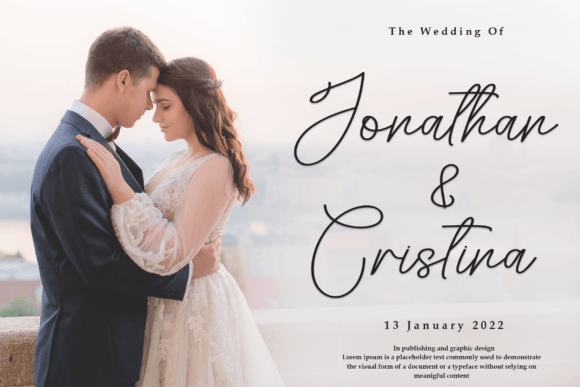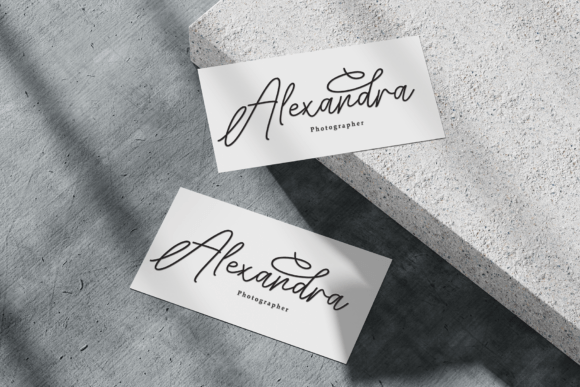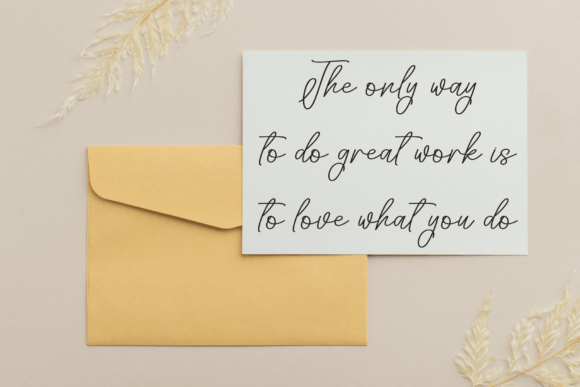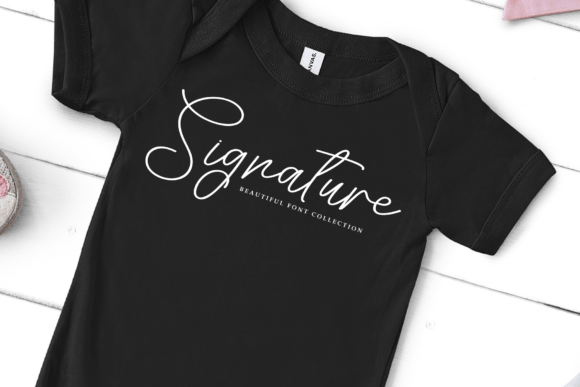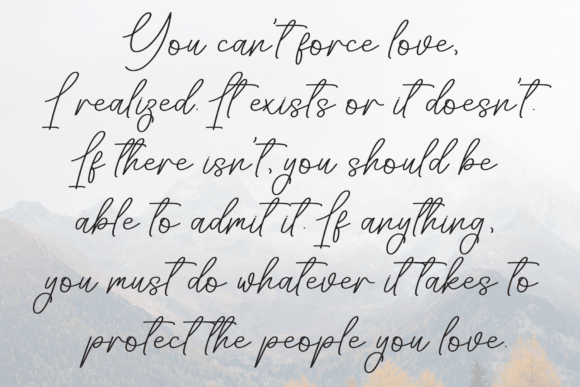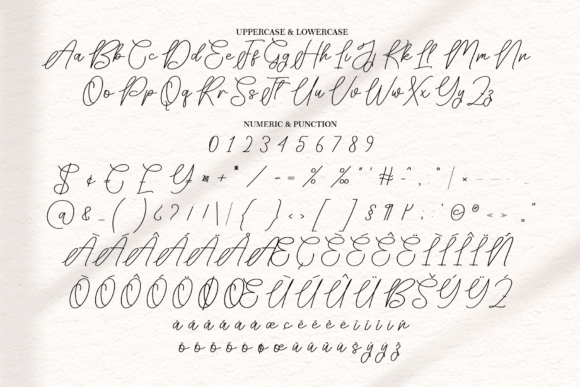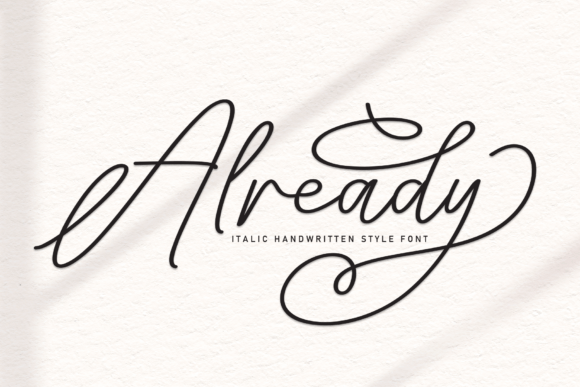
Discover the Elegance of Already Font: A Flowing Handwritten Marvel
Are you on the hunt for a font that adds a touch of elegance and sophistication to your designs? Look no further than Already Font, a beautiful, flowing handwritten font that is sure to capture your heart. With its incredibly distinct and timeless style, Already Font is the perfect choice for designers and crafters looking to create spectacular designs that stand out from the crowd.
The Characteristics of Already Font
Already Font is described by its elegant touch, which sets it apart from other fonts in its category. Its flowing, handwritten style is reminiscent of traditional calligraphy, but with a modern twist that makes it perfect for a wide range of projects. The font’s unique characteristics include:
- Elegant and Refined: Already Font exudes elegance and refinement, making it perfect for designs that require a touch of sophistication.
- Flowing and Dynamic: The font’s flowing style gives it a dynamic feel that’s perfect for creating eye-catching designs.
- Distinct and Timeless: Already Font’s incredibly distinct and timeless style ensures that your designs will stand the test of time.
Uses for Already Font
Already Font is a versatile font that can be used for a wide range of projects, including:
- Branding and Logo Design: The font’s elegant and refined style makes it perfect for creating professional logos and brand identities.
- Wedding and Event Design: Already Font’s flowing and dynamic style makes it ideal for creating beautiful wedding invitations, programs, and other event materials.
- Packaging and Product Design: The font’s unique style makes it perfect for creating eye-catching packaging and product designs that stand out on store shelves.
- Digital Design: Already Font can be used for digital designs, such as social media graphics, blog headers, and more.
Why Choose Already Font?
With so many fonts to choose from, why should you choose Already Font? Here are just a few reasons:
- Unique Style: Already Font’s incredibly distinct and timeless style ensures that your designs will stand out from the crowd.
- High-Quality: Already Font is a high-quality font that is designed to produce crisp, clear results.
Tips for Using Already Font
Here are a few tips for using Already Font to create spectacular designs:
- Use it as a Headline Font: Already Font is perfect for use as a headline font, where its elegant and refined style can really shine.
- Pair it with Other Fonts: The font pairs well with other fonts, so feel free to experiment with different combinations to find the one that works best for your design.
- Experiment with Colors: Already Font looks great in a variety of colors, so don’t be afraid to experiment and find the color that works best for your design.